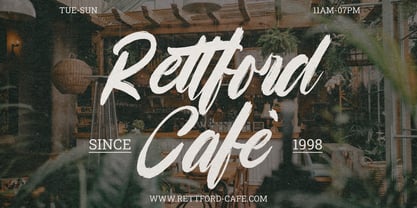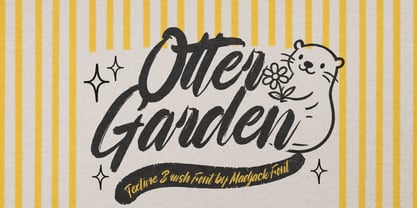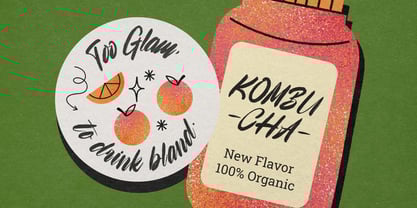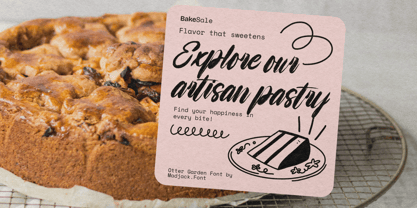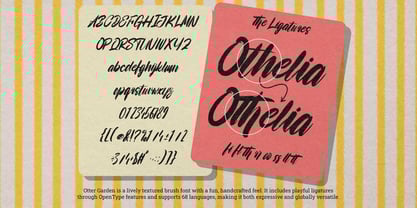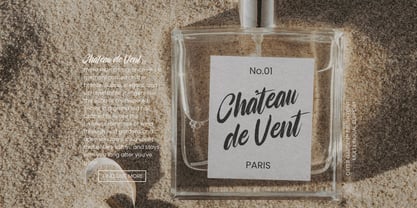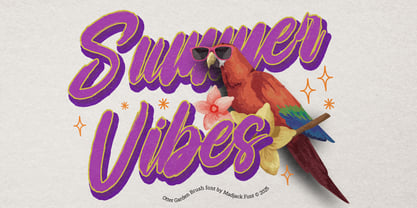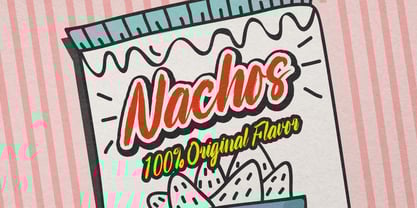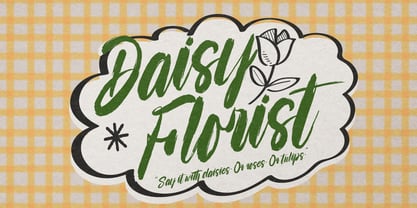
Otter Garden
The Otter Garden Font Family was designed by Zaki Muhammad and published by madjack.font. Otter Garden contains 1 styles. More about this family
Otter Garden, I'd like to introduce Kentwell, a modern and stylish handwritten font.
Otter Garden can be used for a variety of projects such as branding, labels, photography, invitations, stationery, wedding designs, social media posts, advertising, product packaging, product design, and more.
Letters, numbers, symbols, punctuation, and ligatures
This font features multilingual support.